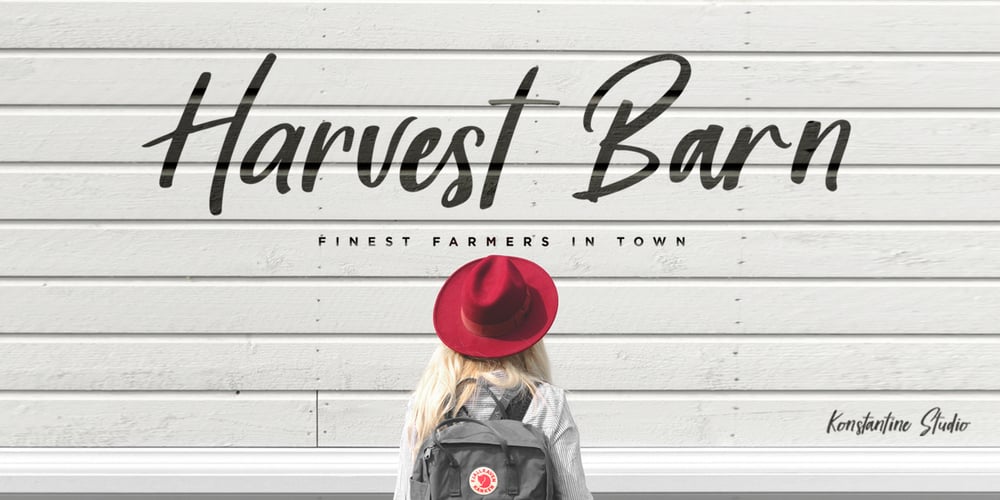
Harvest Barn Font Family was designed by Abdilah and published by Konstantine Studio. Harvest Barn contains 1 styles and family package options. Harvest Barn, a fresh beautiful rustic farmhouse font. Inspired by the rustic home decor concept and farmhouse feels. It would be a perfect mate for branding, logo, rustic wedding concept, home decor, journal, poster quote, vintage flea market promotion, etc. So versatile, right?